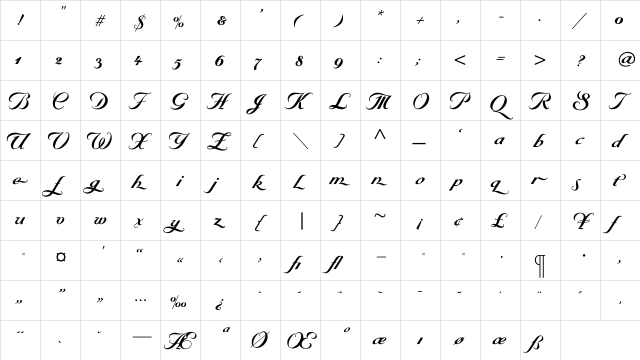
ByronBoldSwash Regular Font Preview
ByronBoldSwash Regular
Design Context for ByronBoldSwash Typeface
ByronBoldSwash flows with the natural rhythm of handwritten lettering, making it ideal for designs that call for warmth and personal expression. Its bold stroke weight gives it real presence on the page.
Font Pairing: Combine ByronBoldSwash with a simple geometric sans for maximum contrast — the tension between flowing curves and clean structure is a classic typographic pairing.
Pro Tip: Use ByronBoldSwash for short runs of text — names, titles, or taglines. Extended body copy in script faces tires the eye quickly.